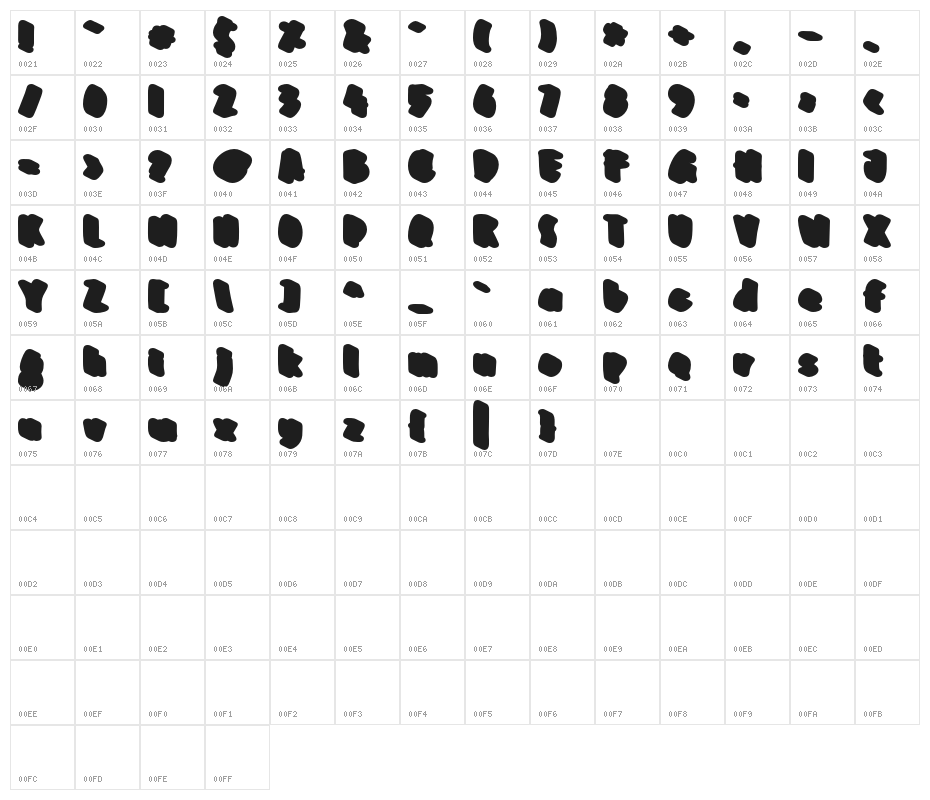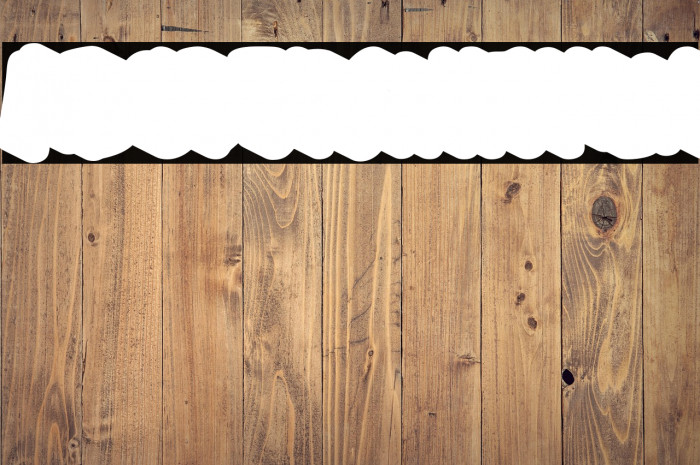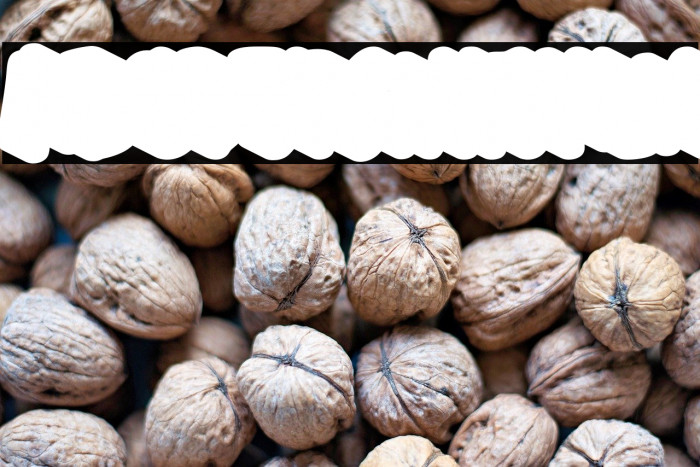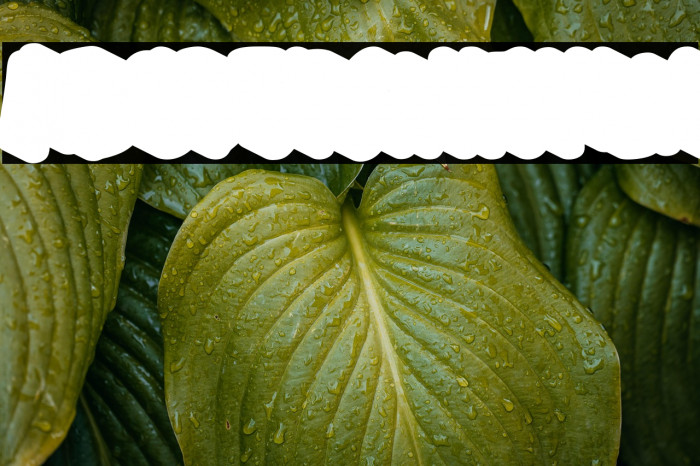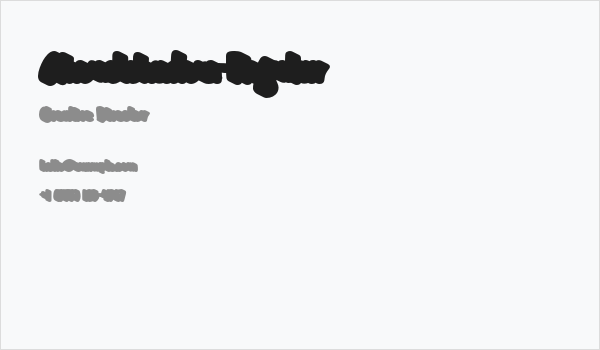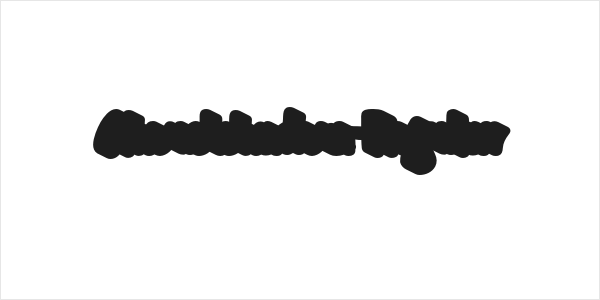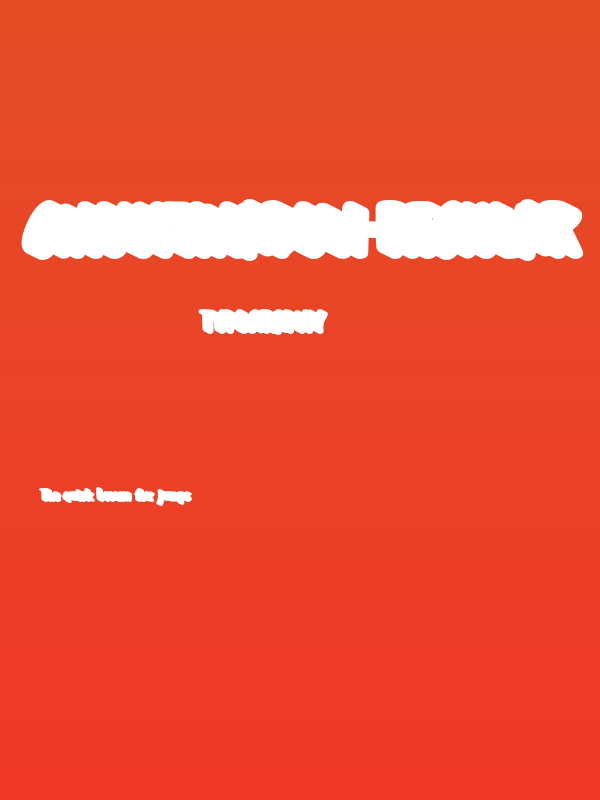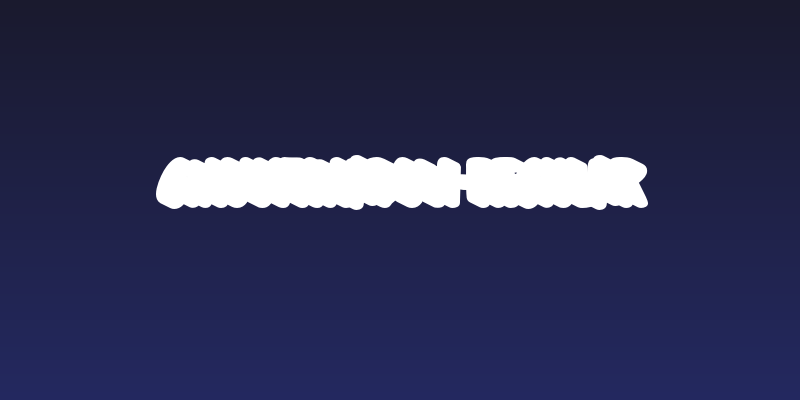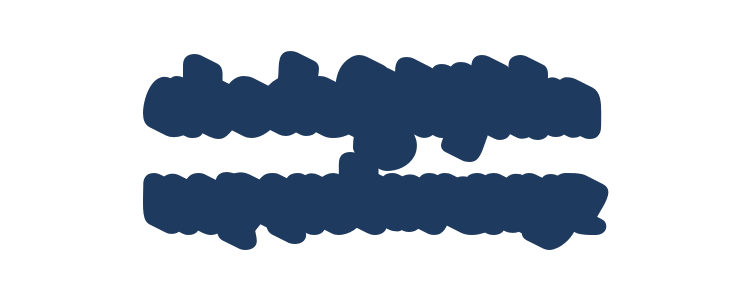
Ghoustshadow-Regular Font
Ghoustshadow-Regular Description
This font features a bold and playful style with a shadow effect that gives it a three-dimensional appearance. The characters are rounded and thick, creating a sense of fun and whimsy. The shadow adds depth, making it stand out against backgrounds. Its design is reminiscent of graffiti or street art, which adds an urban and edgy feel. The font is highly decorative, making it suitable for eye-catching designs. The overall look is both modern and artistic, perfect for projects that require a bold statement.
| Overall Style | Modern, Artistic |
| Proposed Projects | Ideal for posters, event flyers, children's book covers, and any design needing a playful and bold touch. |